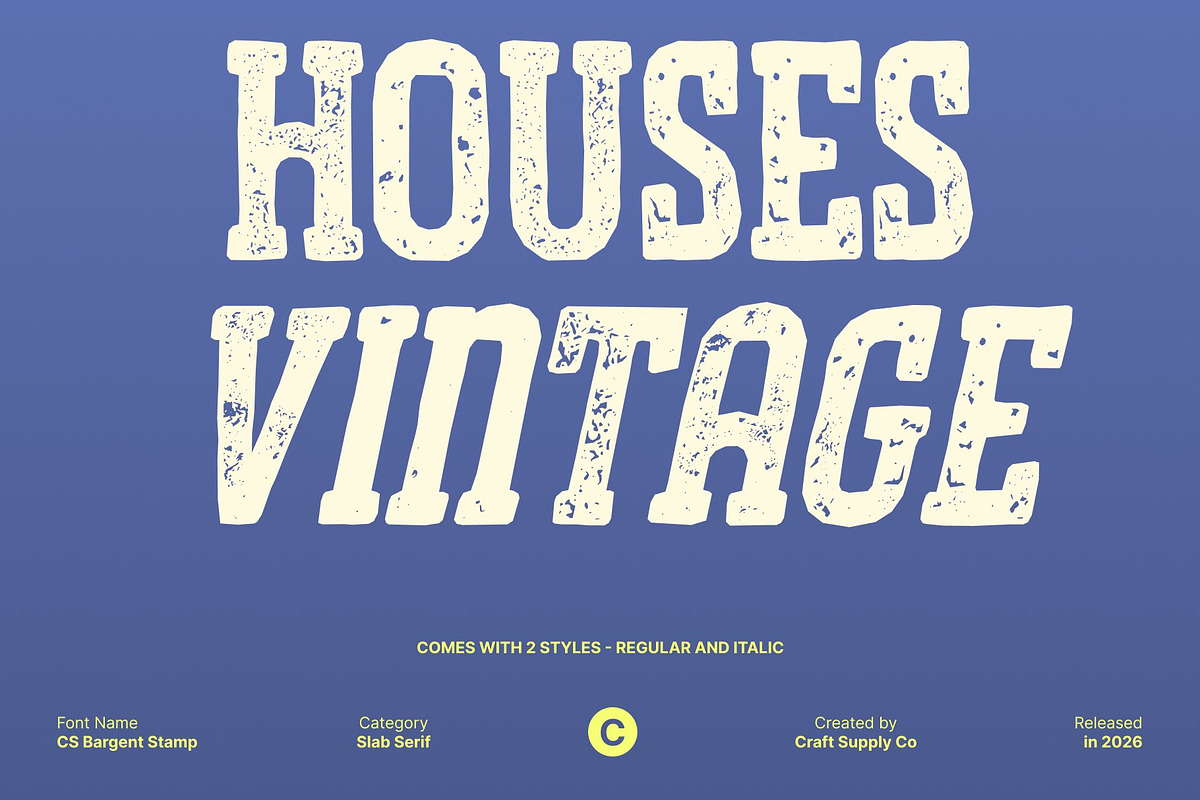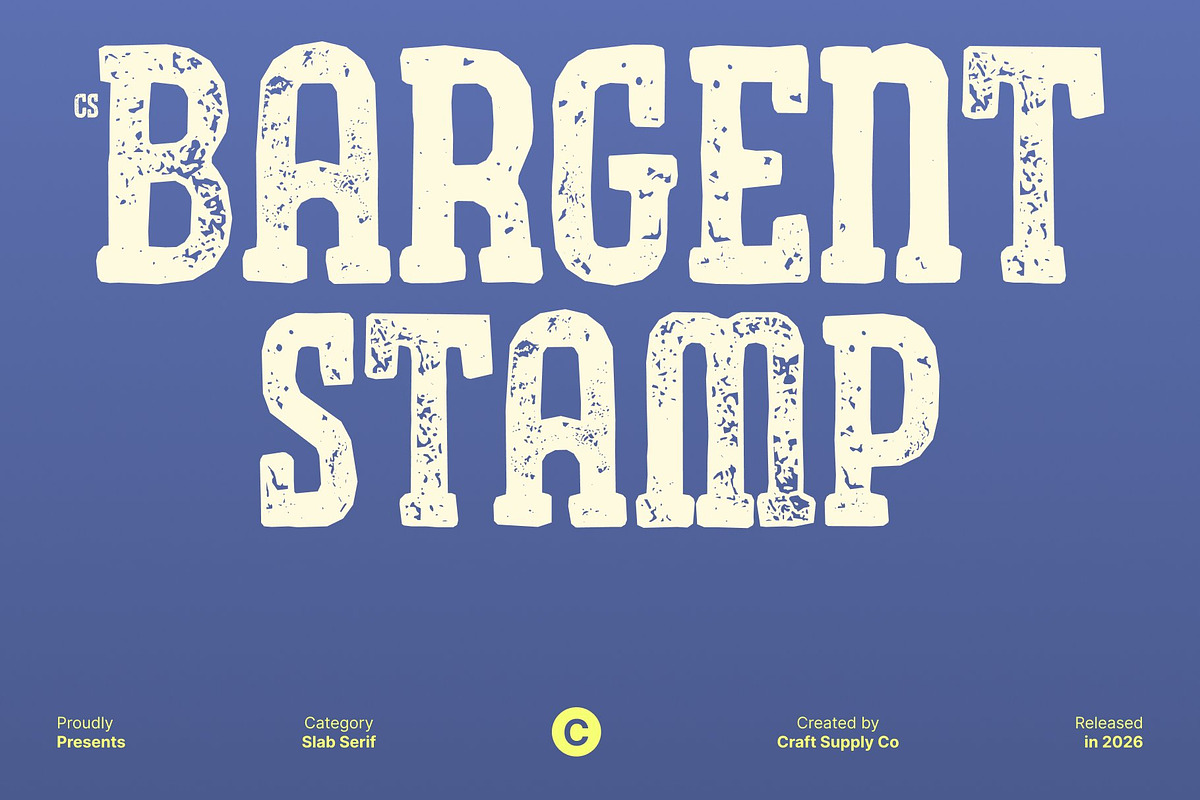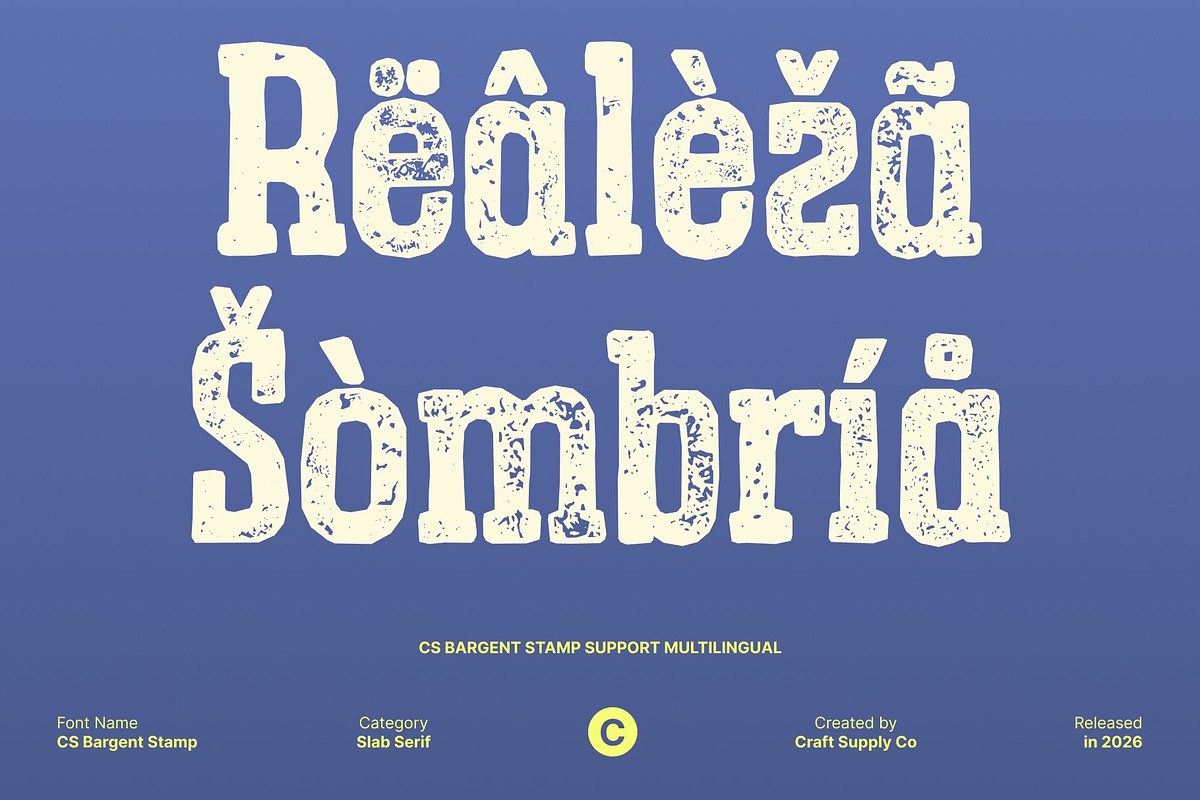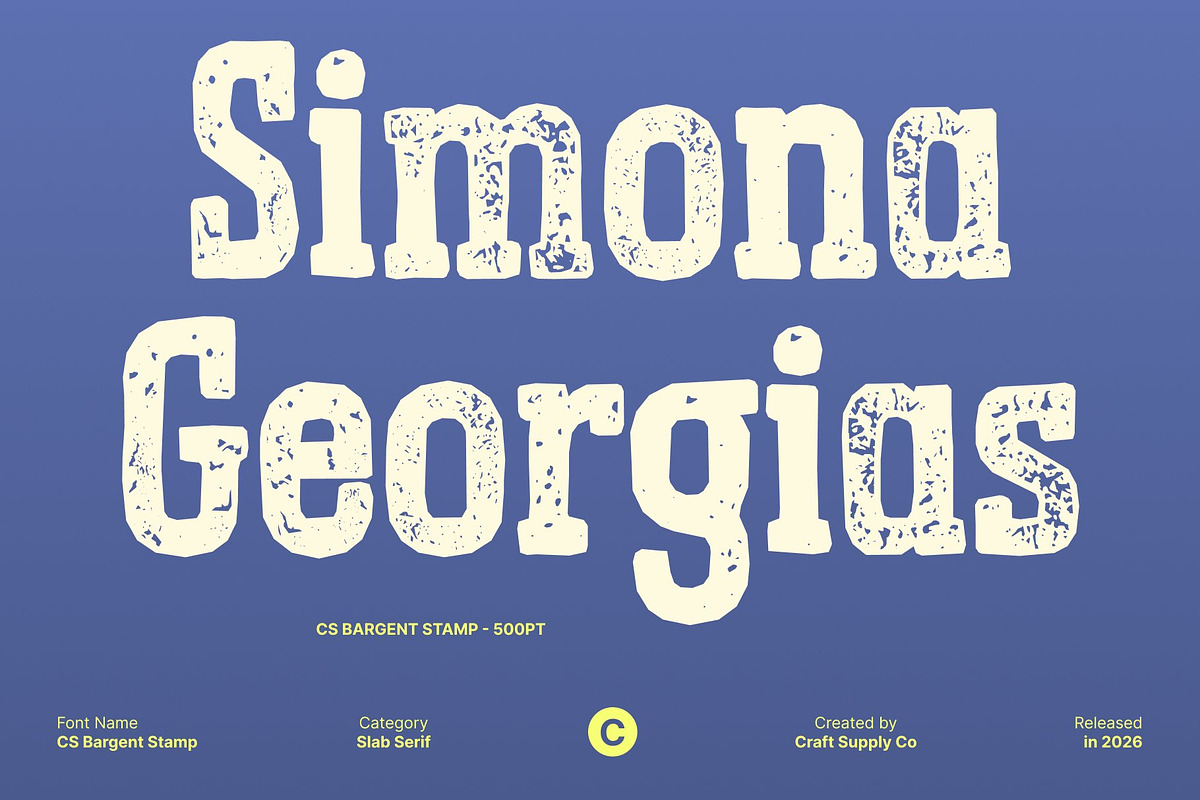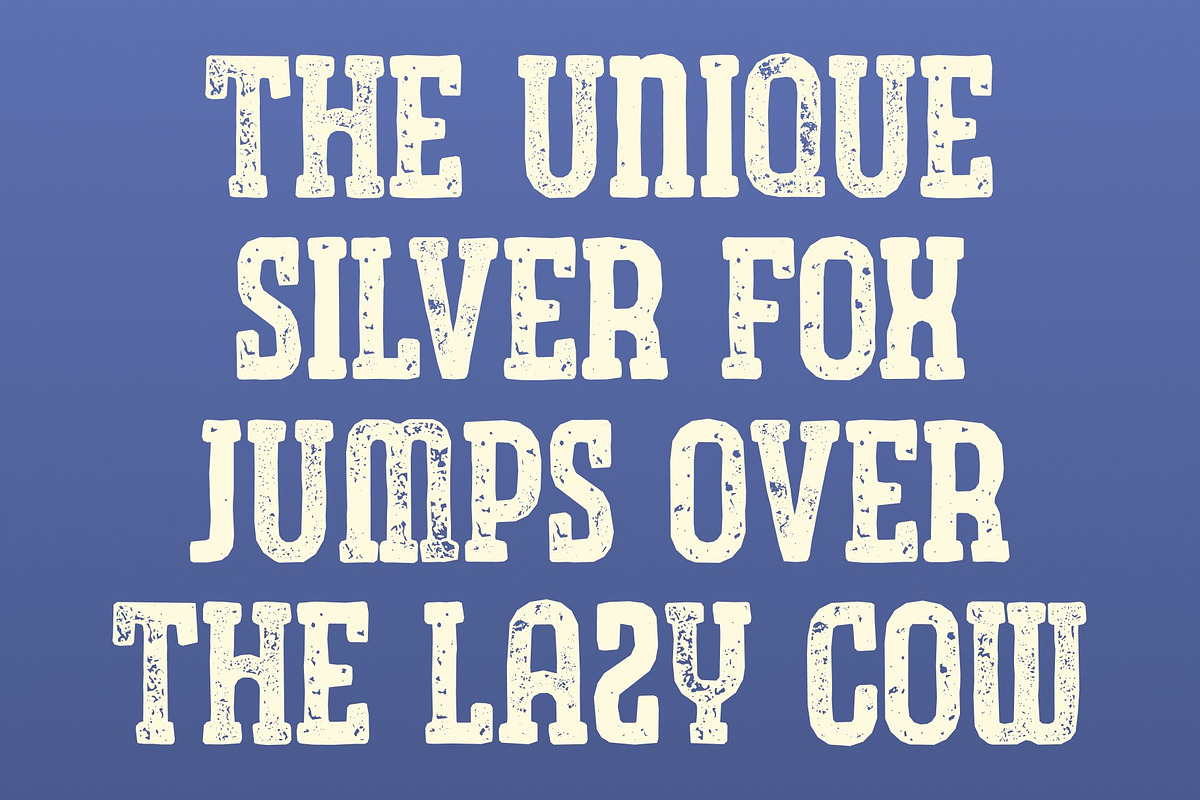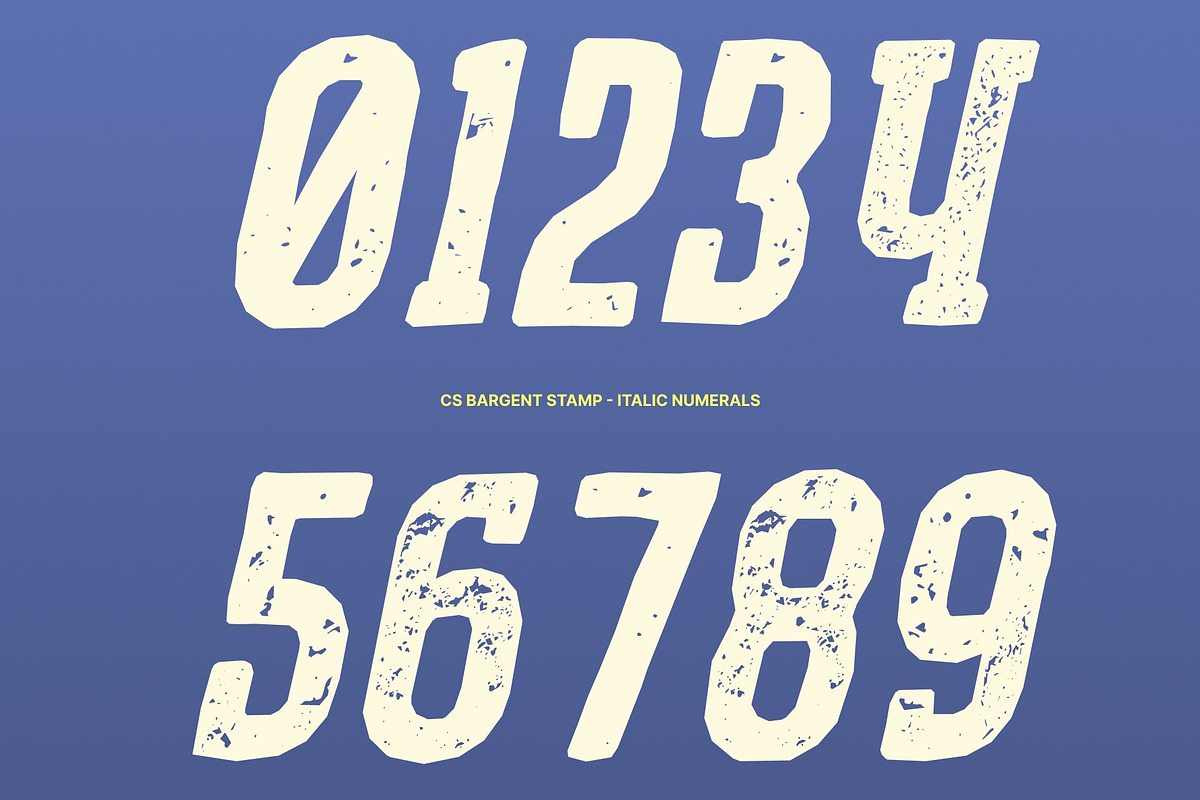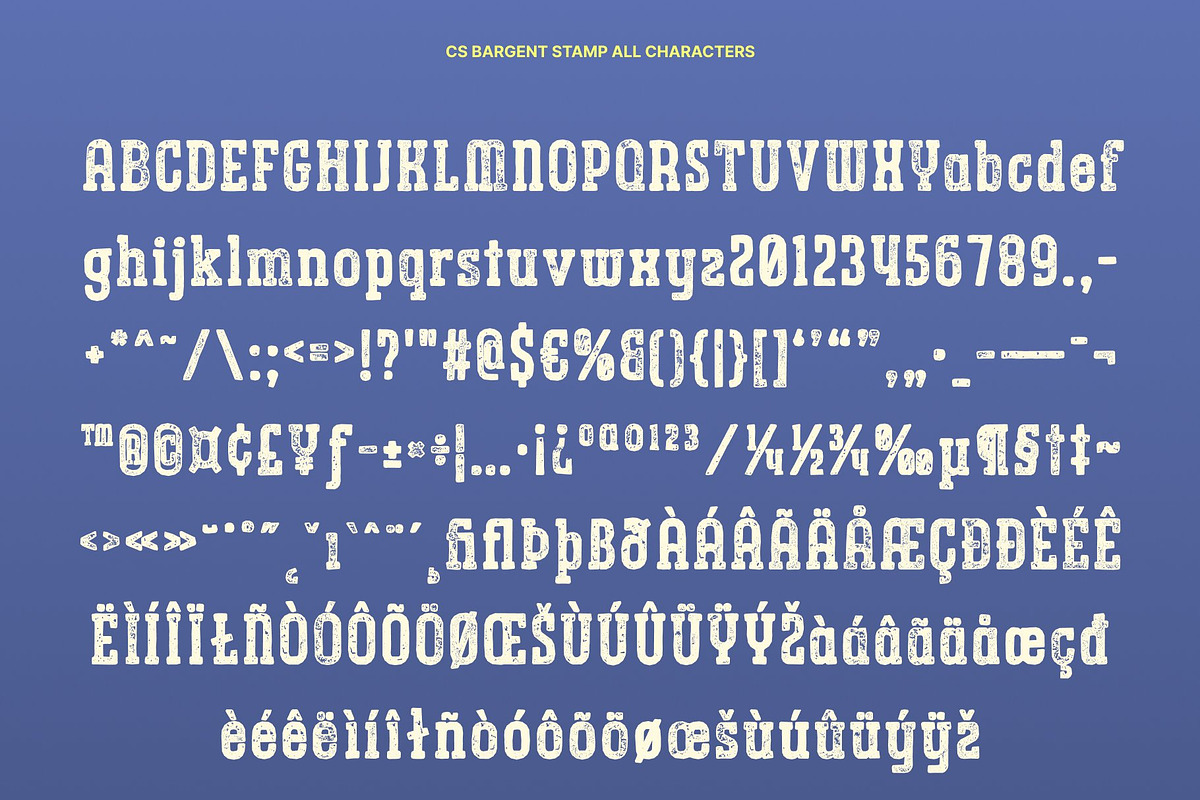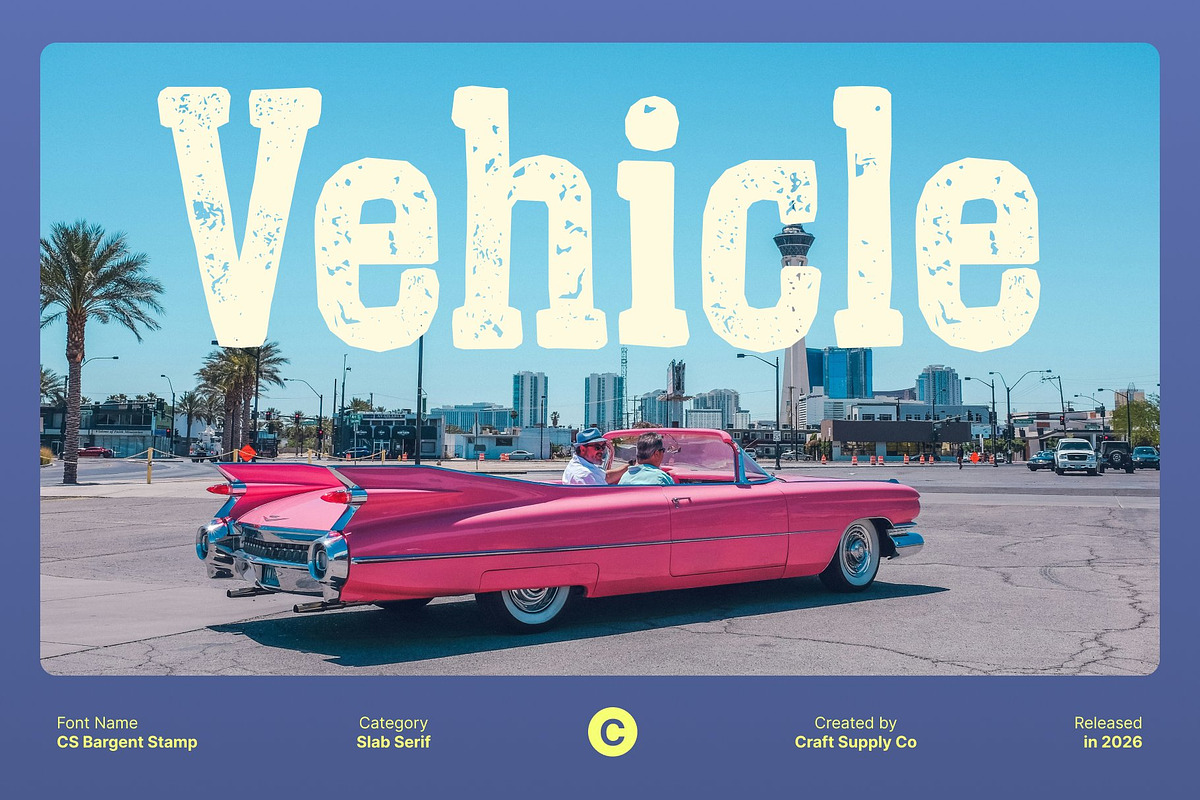
CS Bargent Stamp
CS Bargent Stamp – Modern Slab Serif Font: Bold, Sporty, and Assertive Soft Yet Assertive Slab Serif with Stamped Character This is a modern slab serif font that balances soft curves with strong, assertive forms. Inspired by sporty and campus-style typography, it conveys energy, confidence, and stability. The added stamp effect introduces a subtle distressed texture, giving the font a tactile, vintage feel that recalls classic athletic prints and traditional letterpress techniques.
Built for Headlines and High-Impact Displays With its solid construction and weight, this font performs exceptionally well in headlines, posters, advertisements, and billboards. The stamped texture adds visual depth and authenticity, helping large-scale typography feel more expressive and character-rich while maintaining excellent readability from a distance.
Sporty Influence with Vintage Visual Appeal The sporty inspiration brings a dynamic and energetic vibe, while the stamp effect softens the overall look with an aged, slightly worn finish. This combination creates a unique blend of modern athletic strength and retro charm perfect for designs that want to feel bold, grounded, and timeless at once.
Versatile for Branding with Personality From logos and packaging to editorial layouts and promotional materials, this font adapts effortlessly across modern branding needs. Its assertive slab serif structure, combined with its vintage stamped texture, allows designers to craft visuals that feel strong, authentic, and memorable ideal for lifestyle brands, sports identities, campus projects, and bold contemporary campaigns.
- CS Bargent Stamp Regular
- CS Bargent Stamp Italic